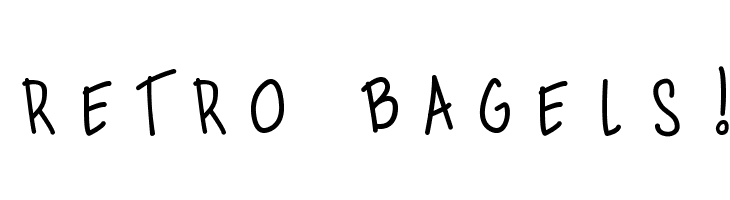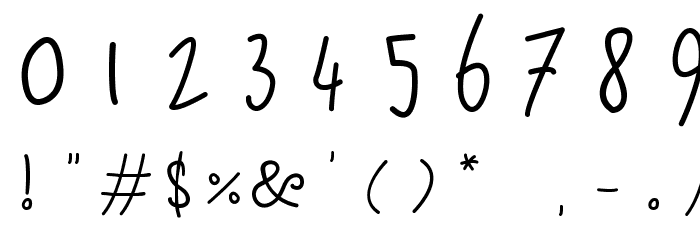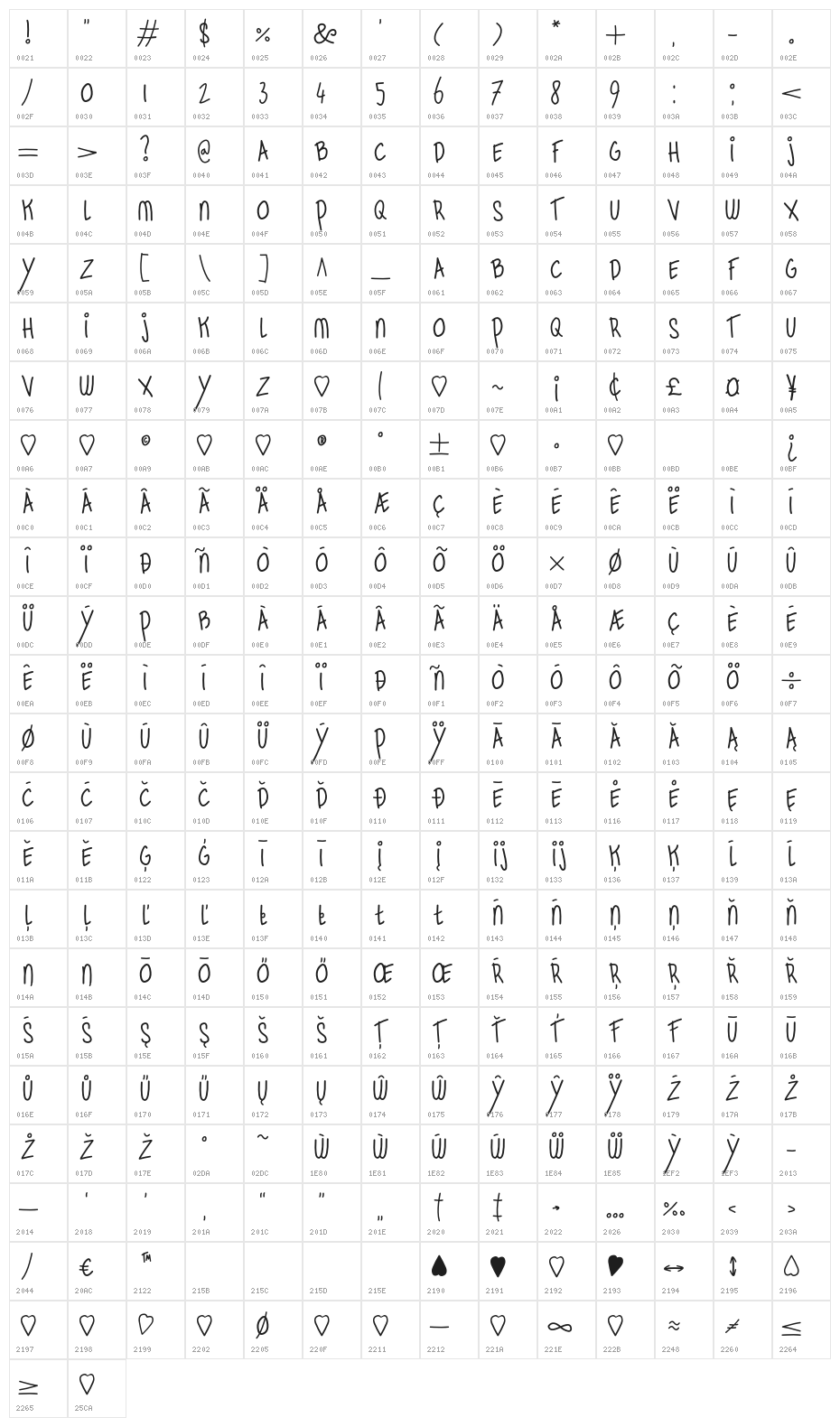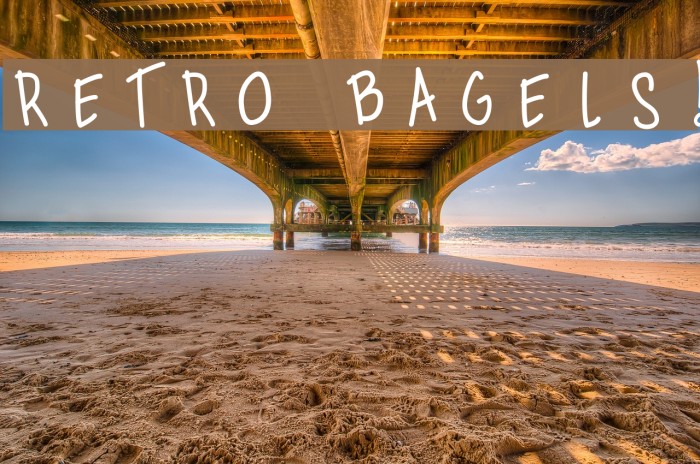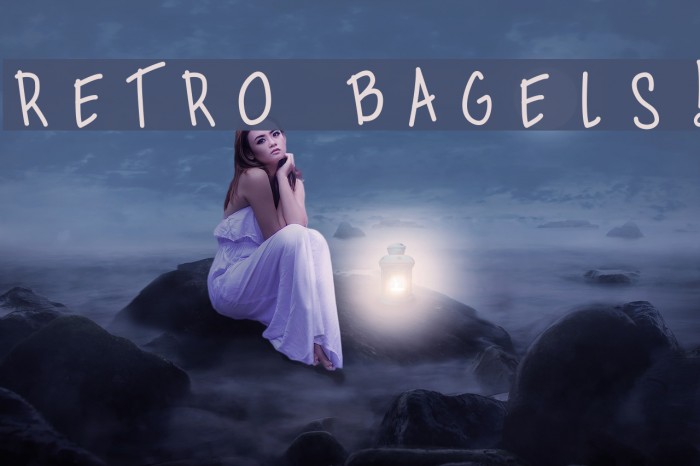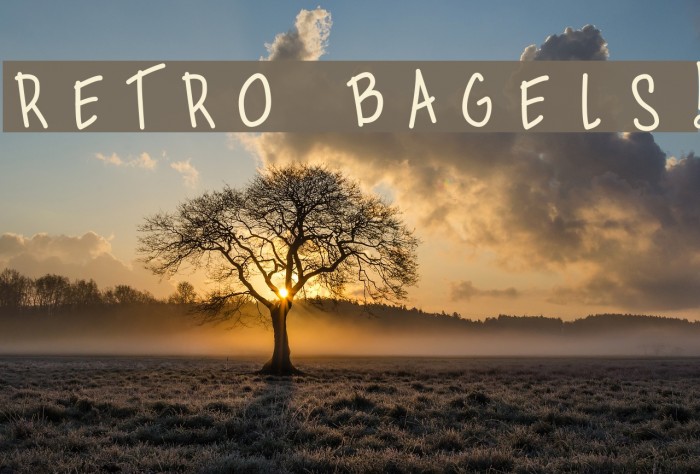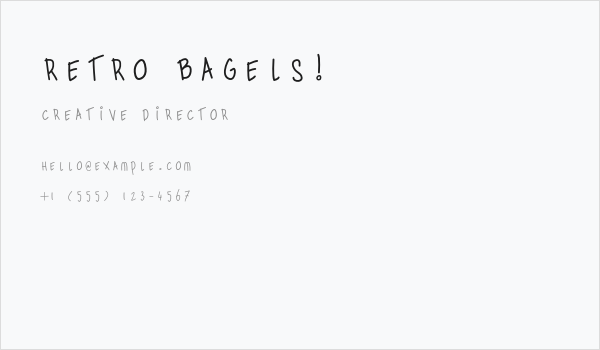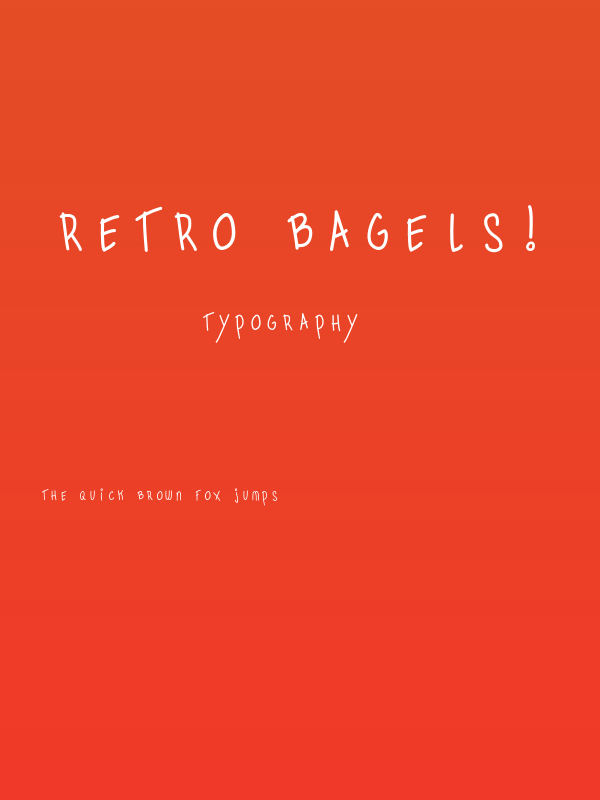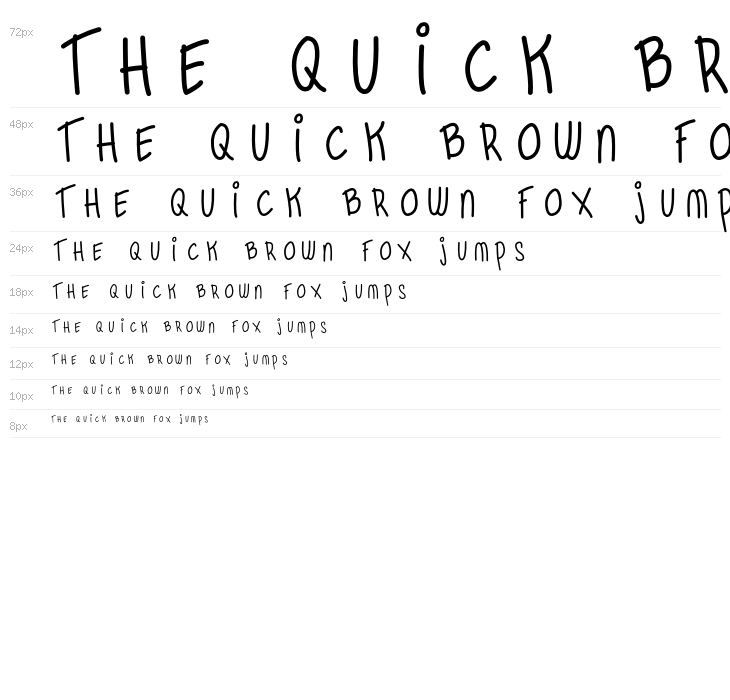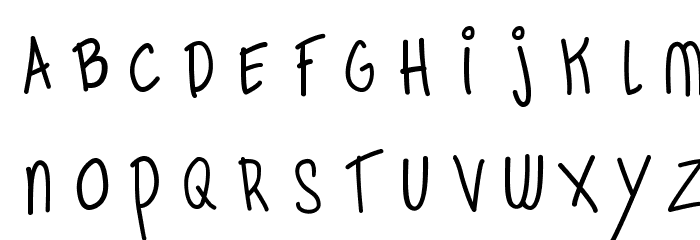
Retro Bagels! Font
Retro Bagels! Description
This playful and quirky font features a handwritten style with a casual and informal appearance. The letters are slightly irregular, giving it a charming and personal touch. The uppercase and lowercase characters maintain a consistent style, with rounded edges and a slight tilt, enhancing its whimsical nature. The numerals and special characters follow the same playful design, making it versatile for various creative projects. Its unique character spacing and stroke variations add to its distinctive look, making it ideal for projects that require a fun and approachable aesthetic.
| Proposed Projects | Ideal for greeting cards, children's books, playful branding, and casual invitations. |